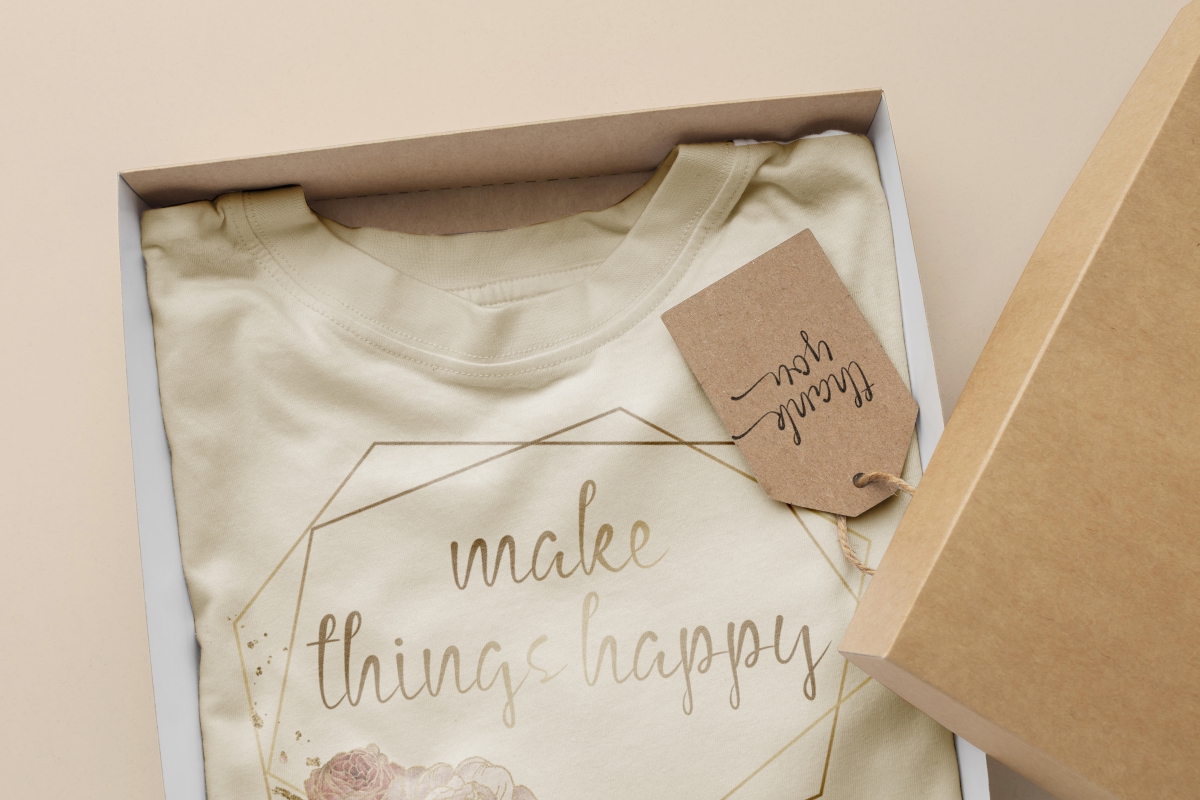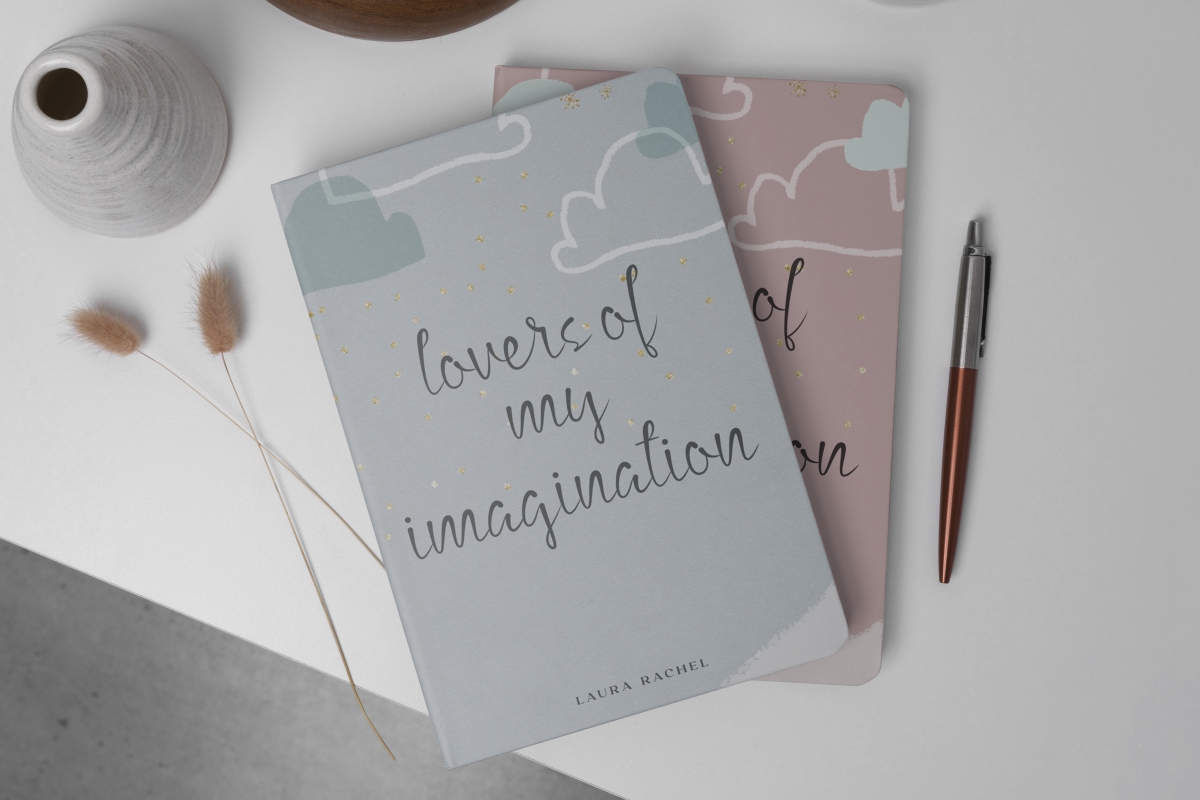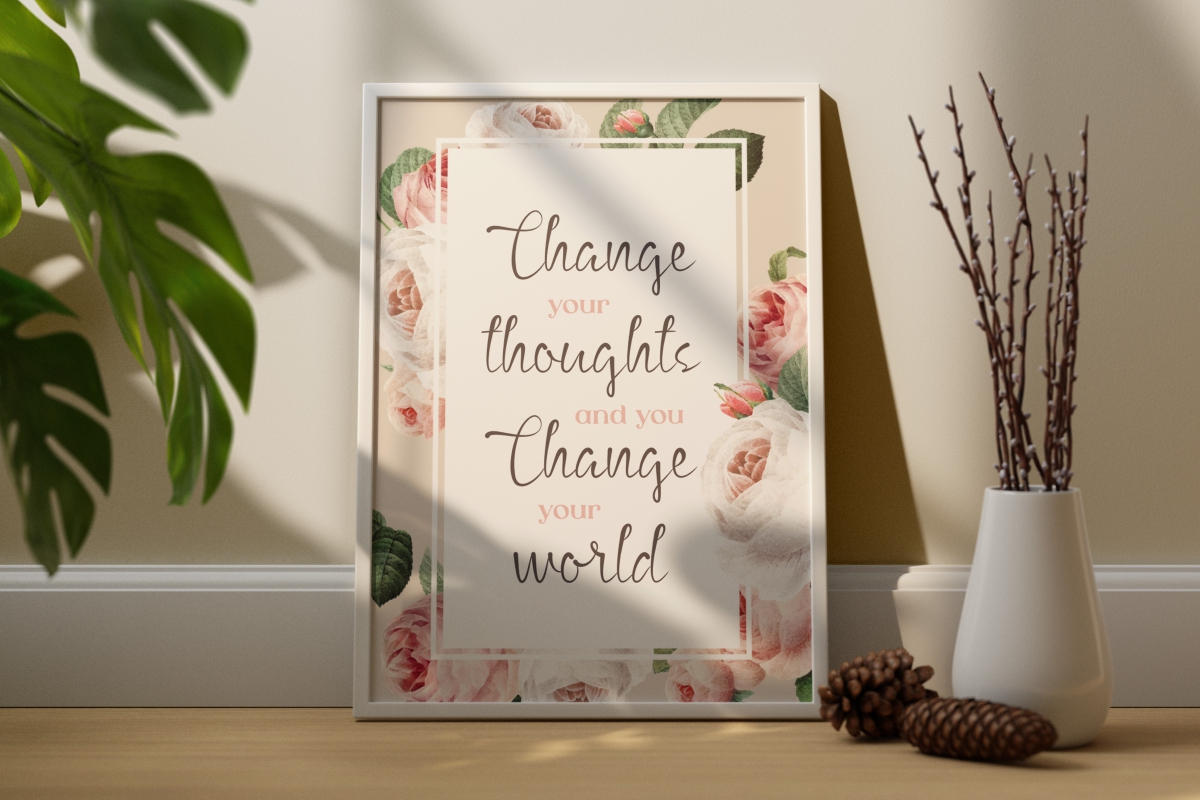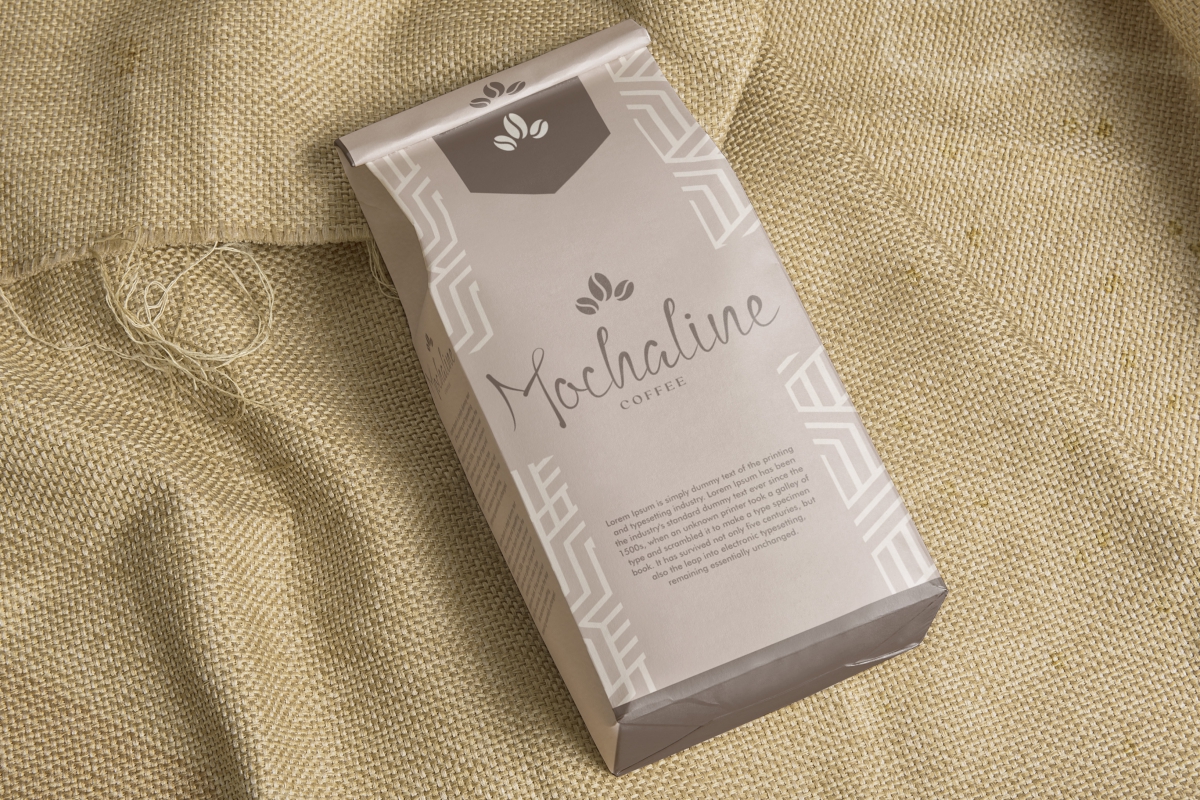
Highland Falls Font
Highland Falls Script Font
It’s a fun calligraphy with stylish font created by NoahType, inspired by natural handwriting with pen ink that exudes beauty and is still easy to read. It will be amazing for any project: banners, custom mugs, greeting card, invitation, product packaging, quotes, title, and more.
Highland Falls Font includes full set of Uppercase and Lowercase Basic Characters, Numerals and Punctuation. Also it contains alternate and ligatures characters to make your designs have a feminine and simple look and perfect for many projects such as café, crafts, fashion, florist, kids stuff, photography, sweet shop, wedding, writer, and more.